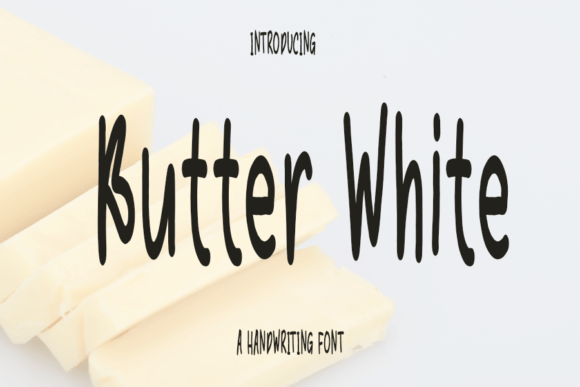
The Butter White Font: A Designer’s New Best Friend
I’ll never forget the time I was working on a wedding invitation project, and my client asked for a font that was both elegant and playful. I scoured the internet, tried out dozens of fonts, but nothing seemed quite right. That was until I stumbled upon the Butter White font. ✨ It was love at first sight! The perfect blend of classy and quirky, this handwritten font has become a staple in my design toolkit.
• ✨ Simple yet elegant design that’s perfect for a wide range of projects
• 💕 Quirky and playful vibe that’s sure to add some personality to your designs
• 🎨 Versatile and can be used for logos, branding, invitations, stationery, and more
While I absolutely adore the Butter White font, there are a few things to keep in mind: 🤔
• ⚠️ Limited language support (for now, it’s mostly English and some European languages)
• 💻 Not the best choice for body text or long paragraphs (it’s more suited for headings and titles)
The Story Behind Butter White
According to the font’s creator, Butter White was inspired by the classic elegance of vintage typography, combined with a dash of modern playfulness. The designer wanted to create a font that was both refined and approachable, perfect for a wide range of design projects 🎨
Q: What type of projects is Butter White best suited for?
A: Butter White is a versatile font that can be used for a wide range of projects, including logos, branding, invitations, stationery, and more! 🎉
Q: Does Butter White support OpenType features?
A: Yes, Butter White supports OpenType features, including stylistic alternates and glyphs. This means you can customize your text to create unique and stunning designs 🔍